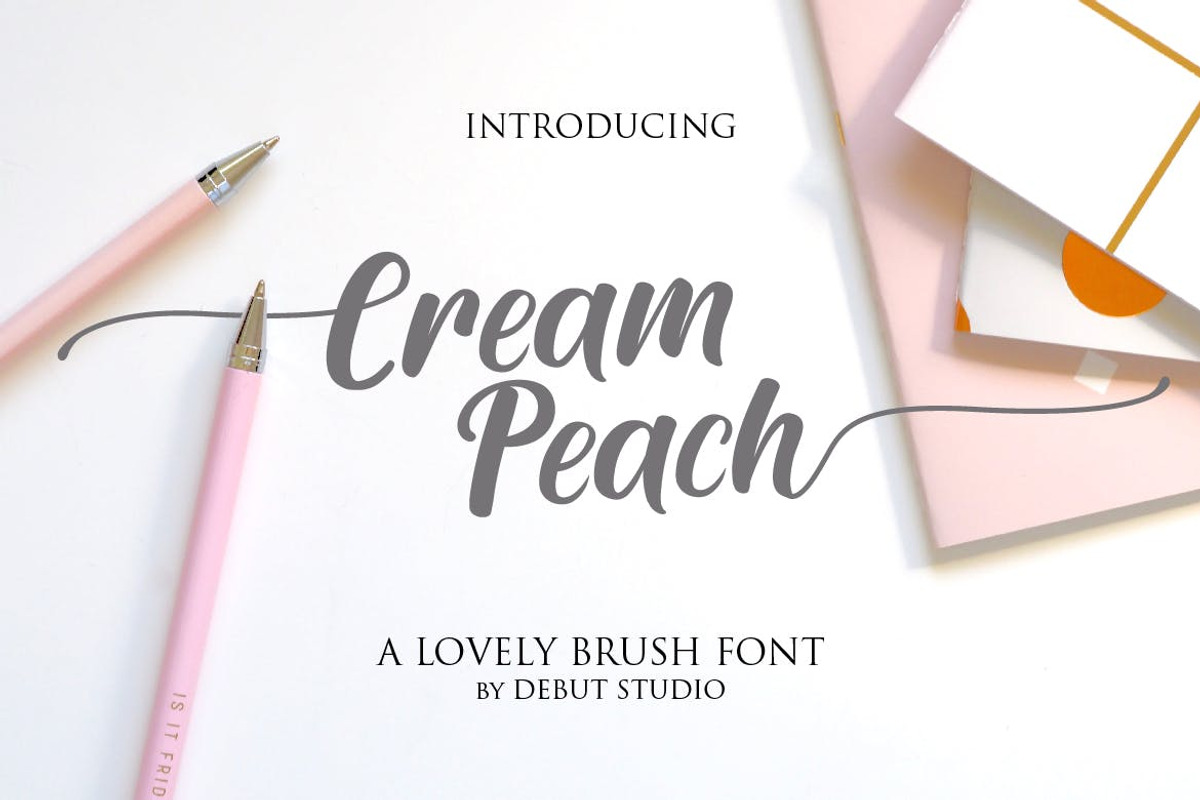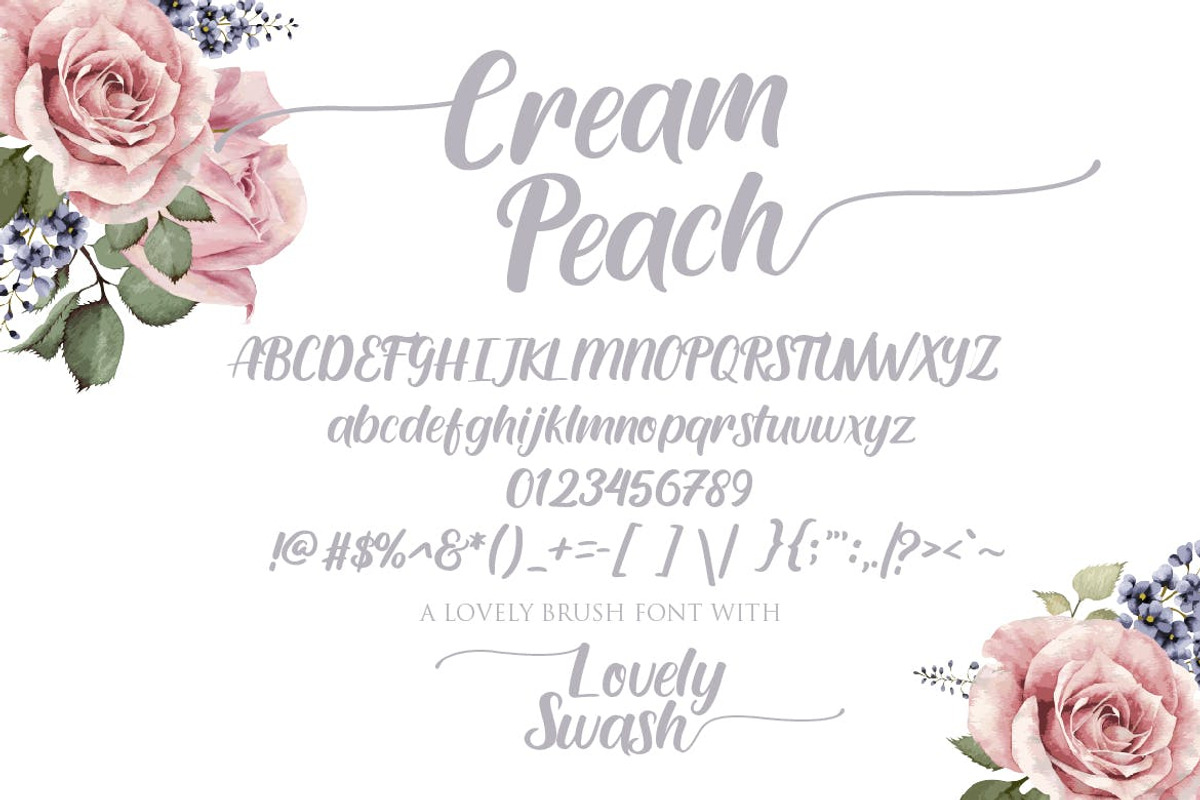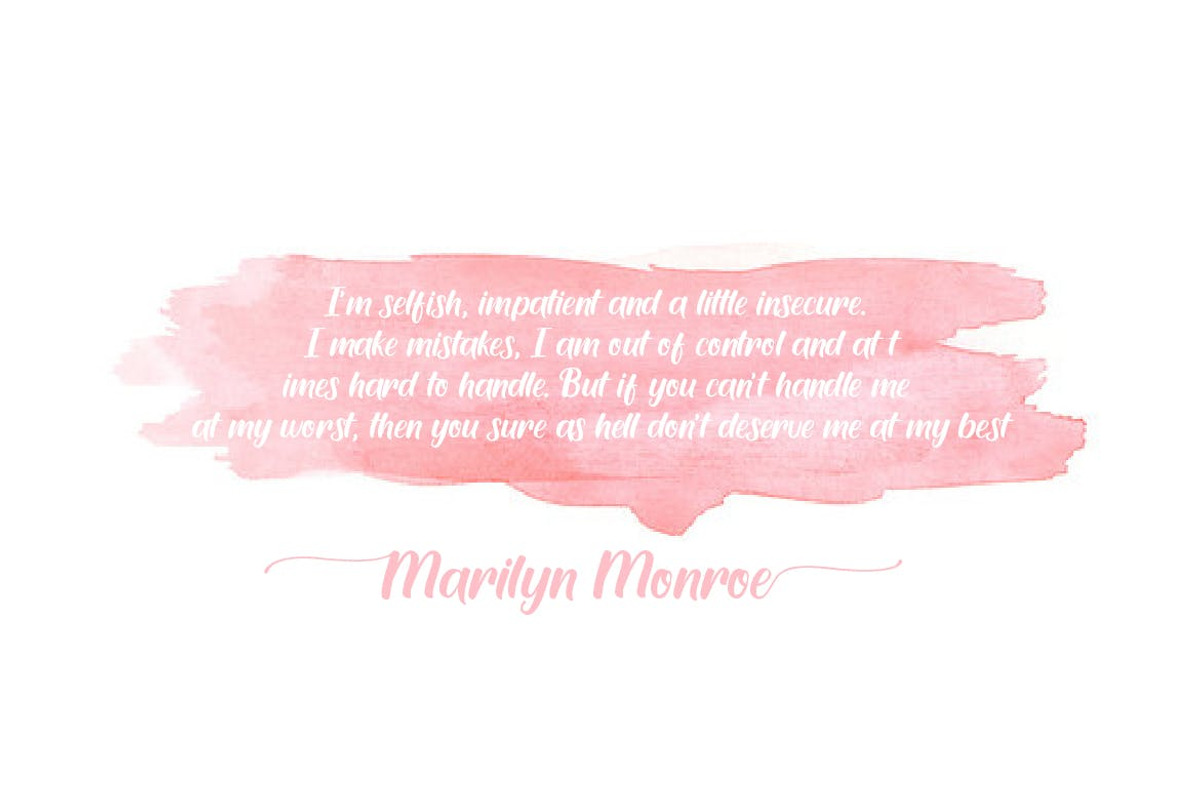
Cream Peach Brush Font
Introducing, our latest stuff, Cream Peach Lovely Brush Font.
This font is suitable for wedding invitation, poster, quote, label, card name, and other stuff
- Alternate Stylistic Character
Why Cream Peach Brush Font is worth a look
Cream Peach Brush Font by Debut Studio fits naturally into Branding, posters, packaging, typography.